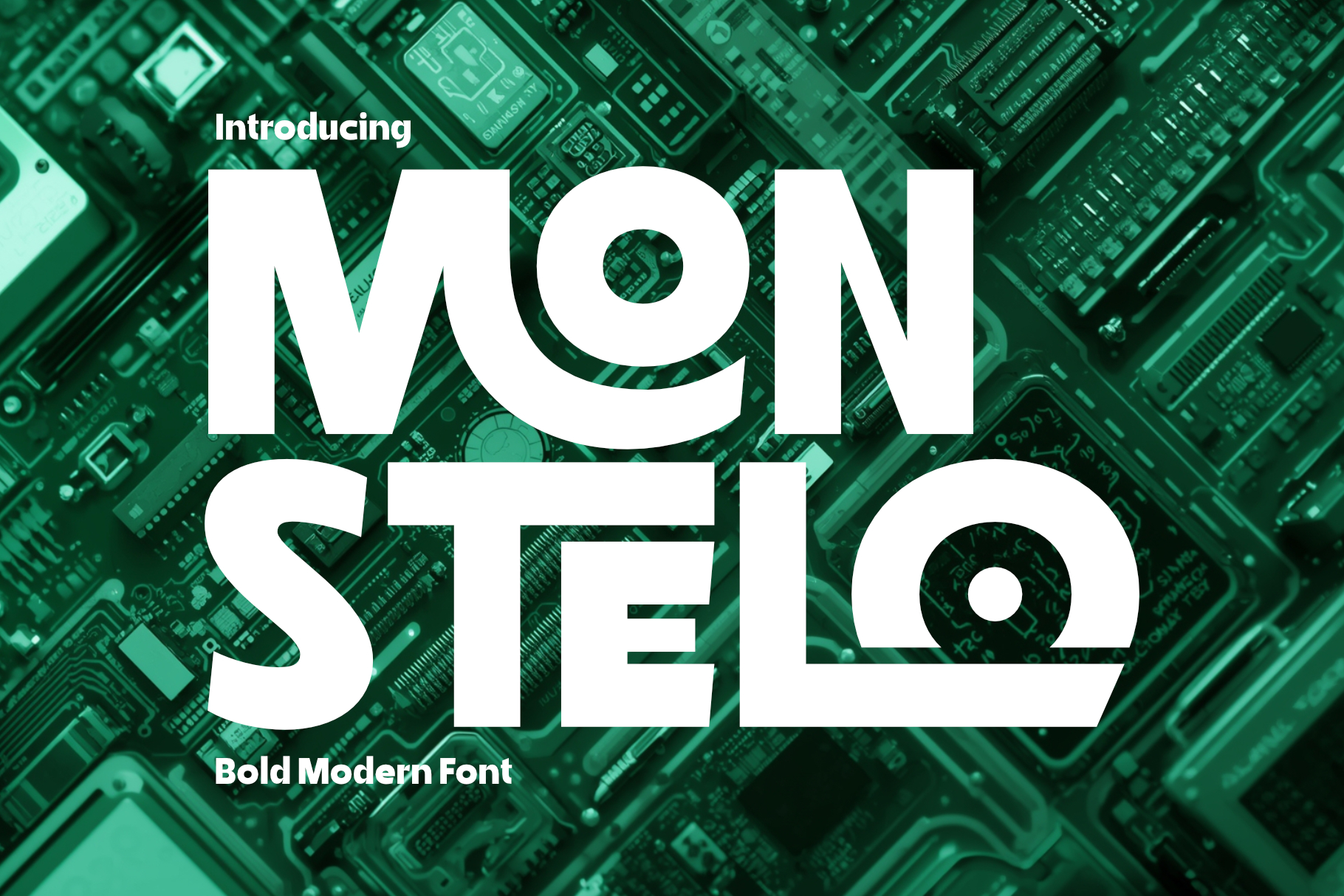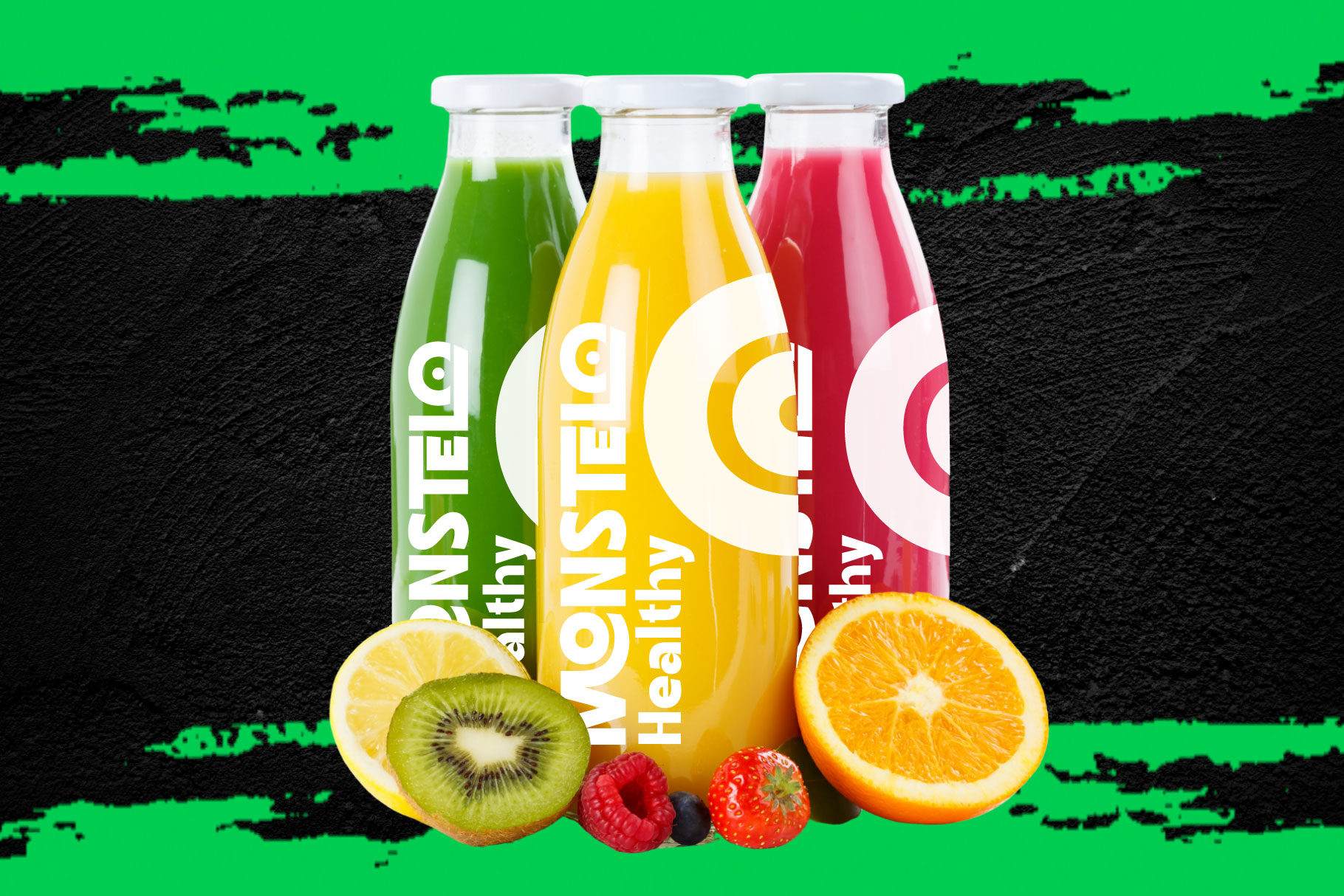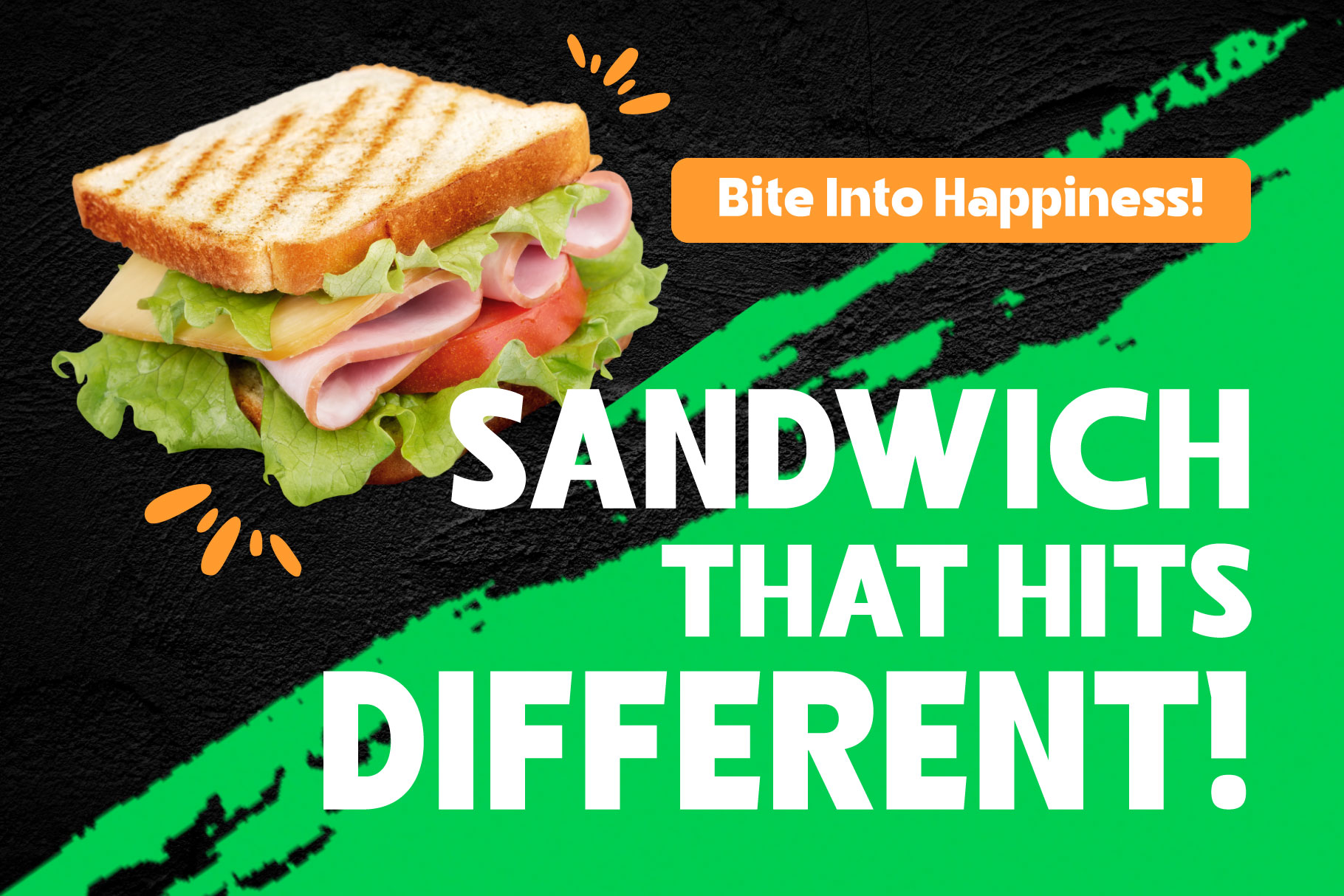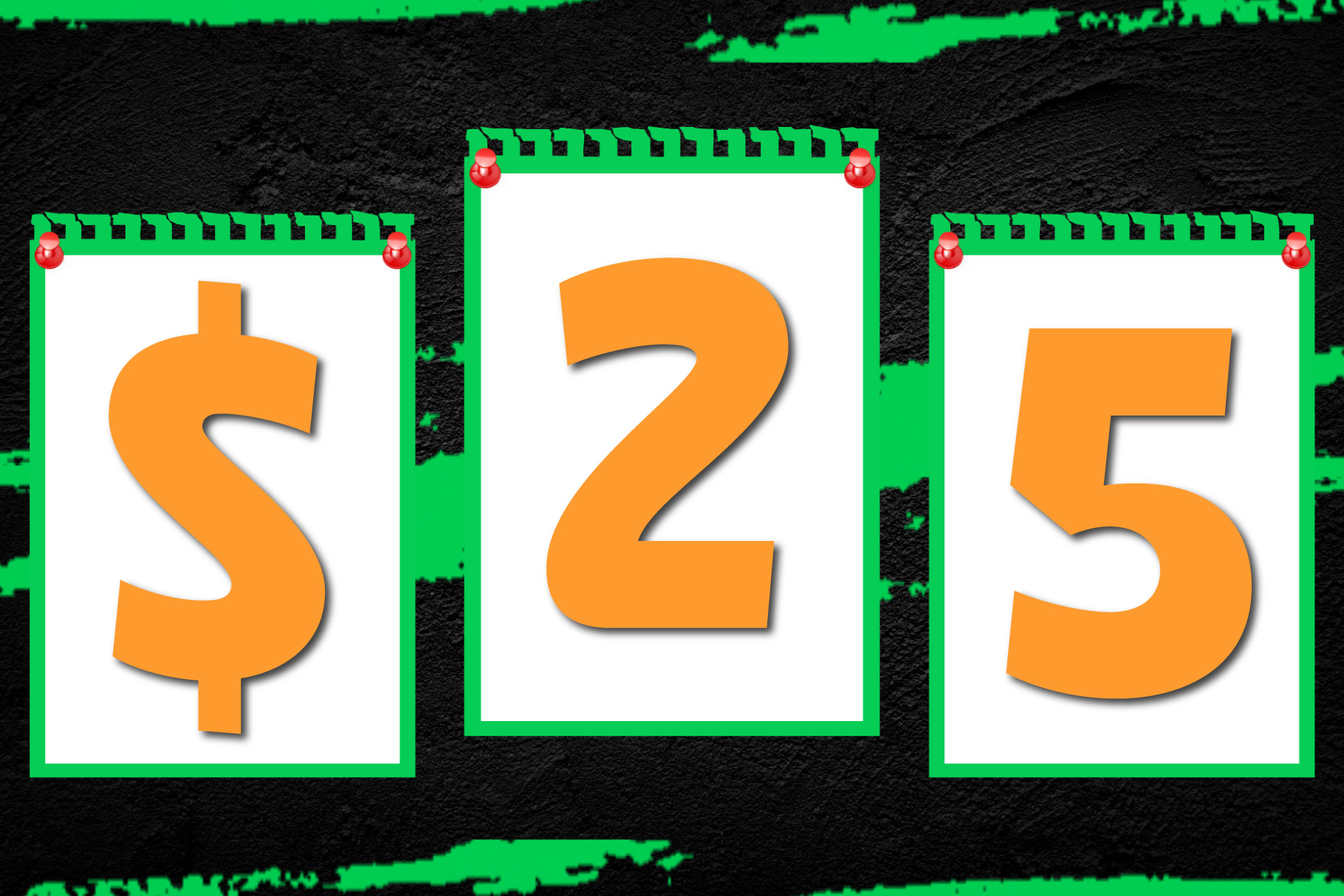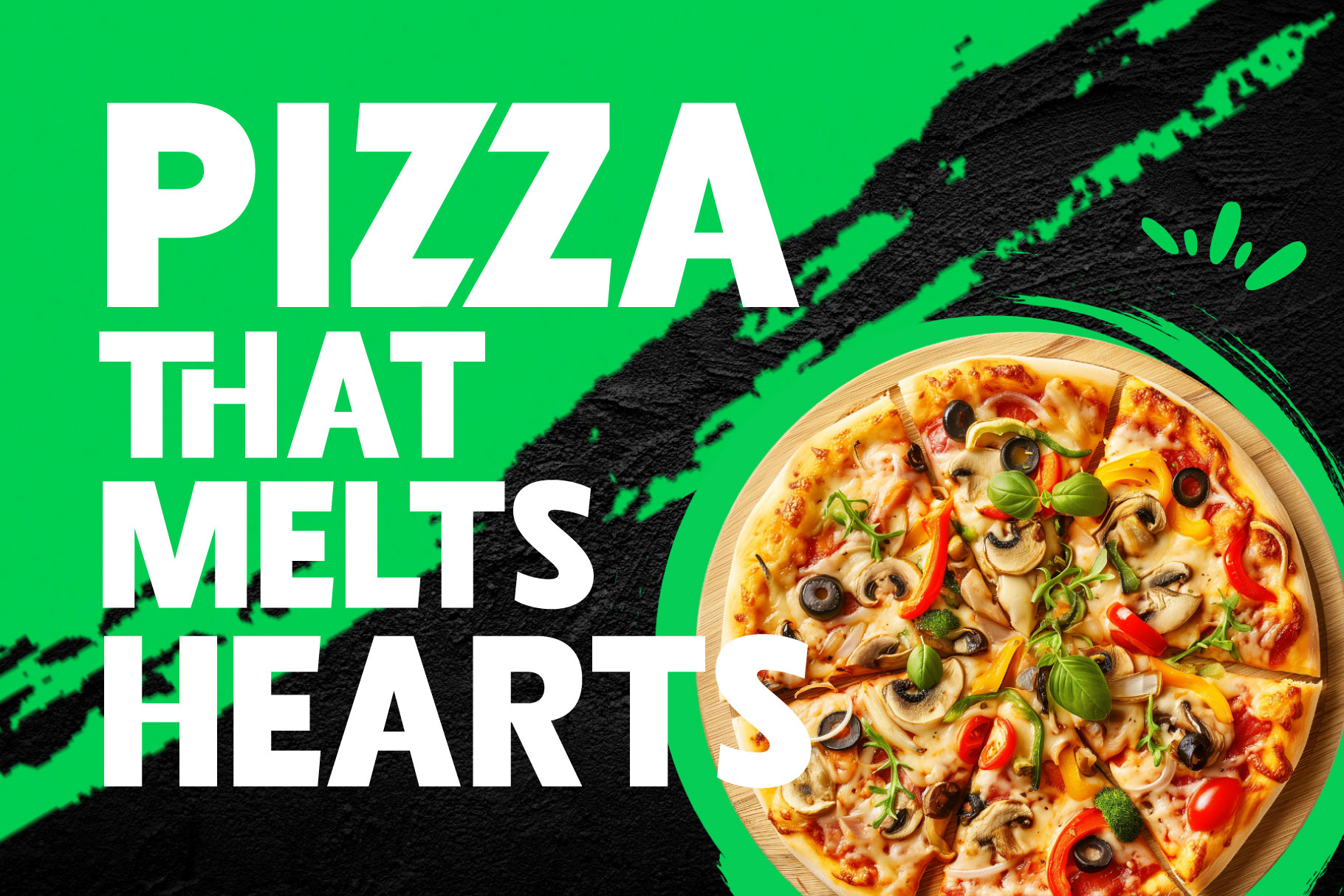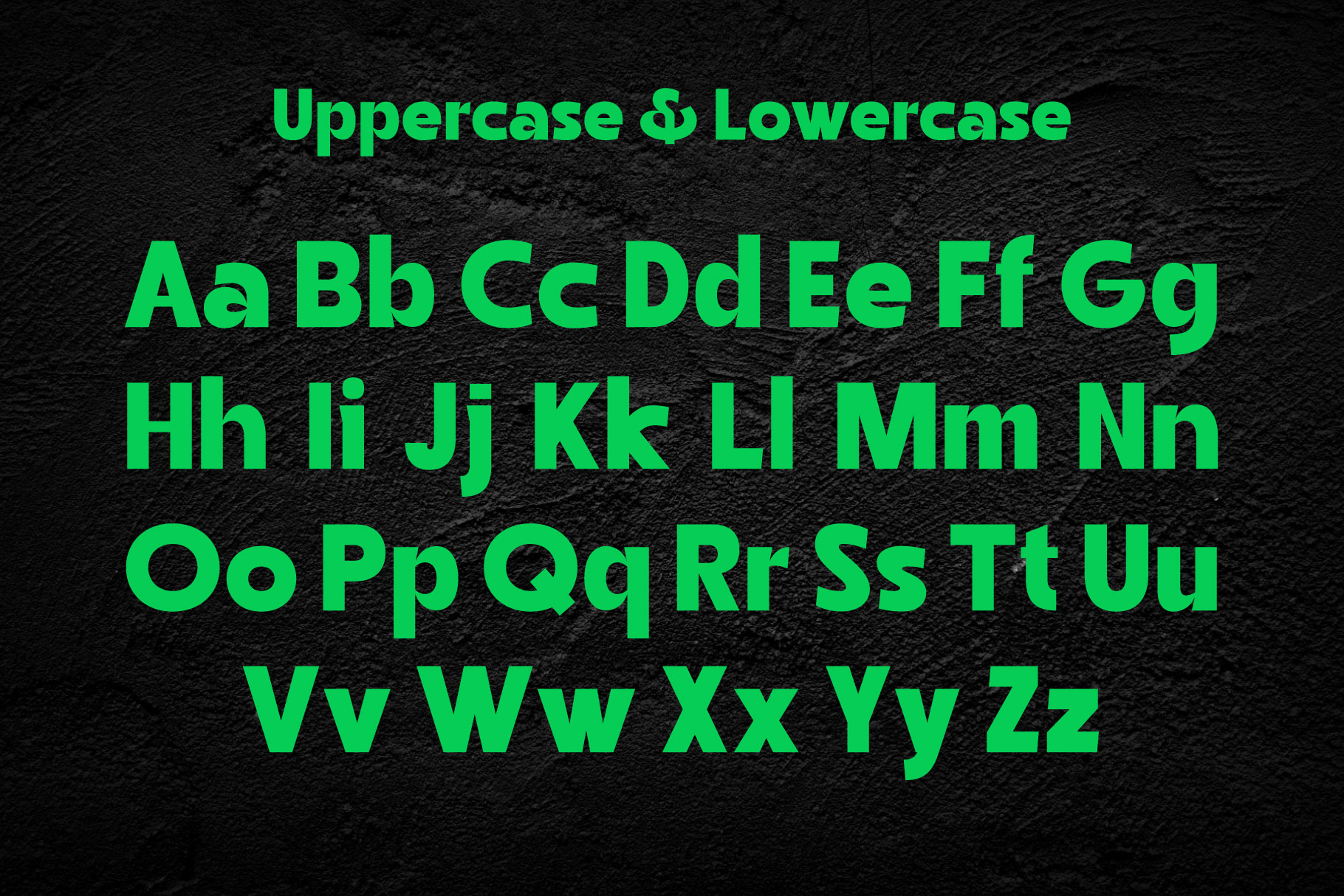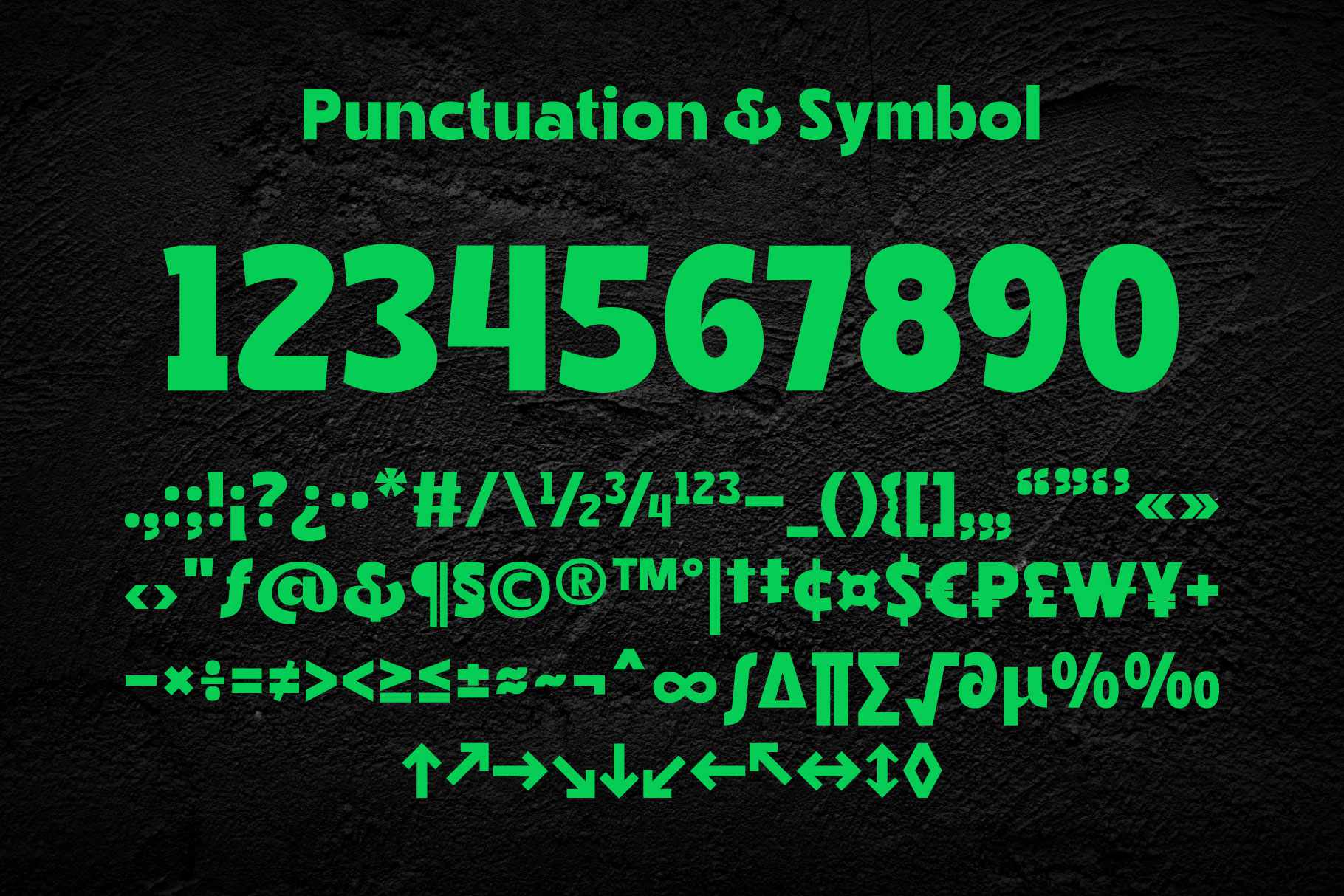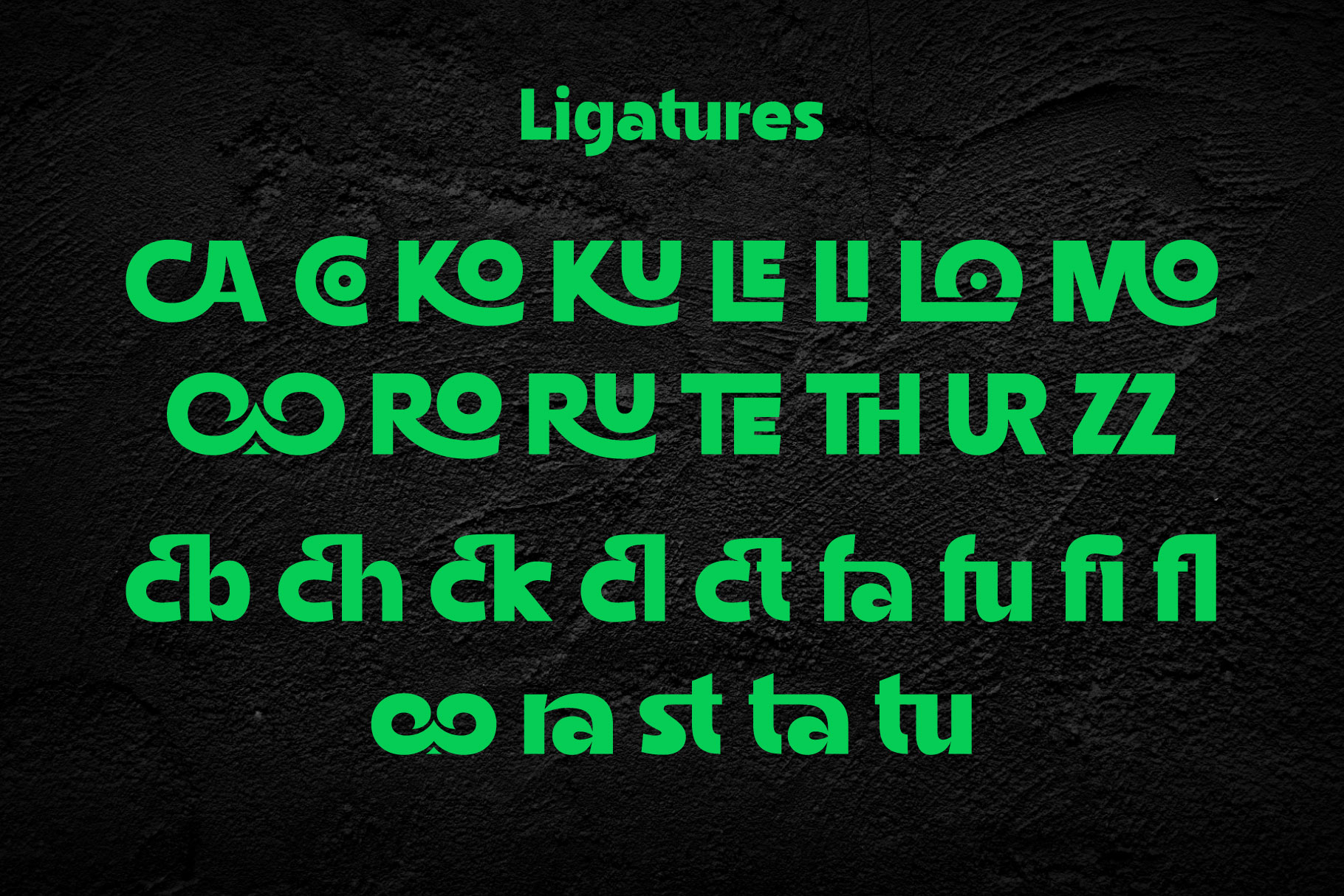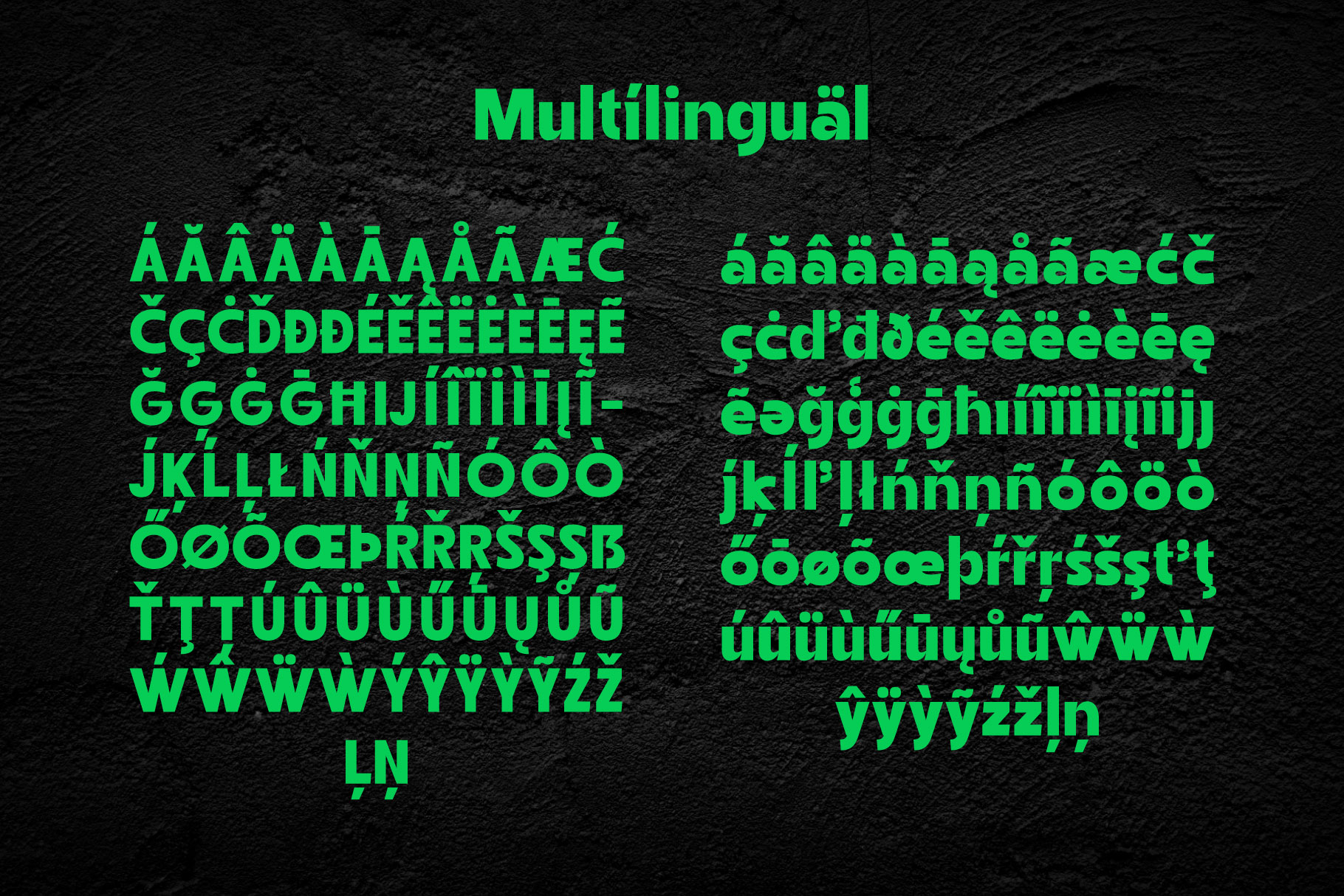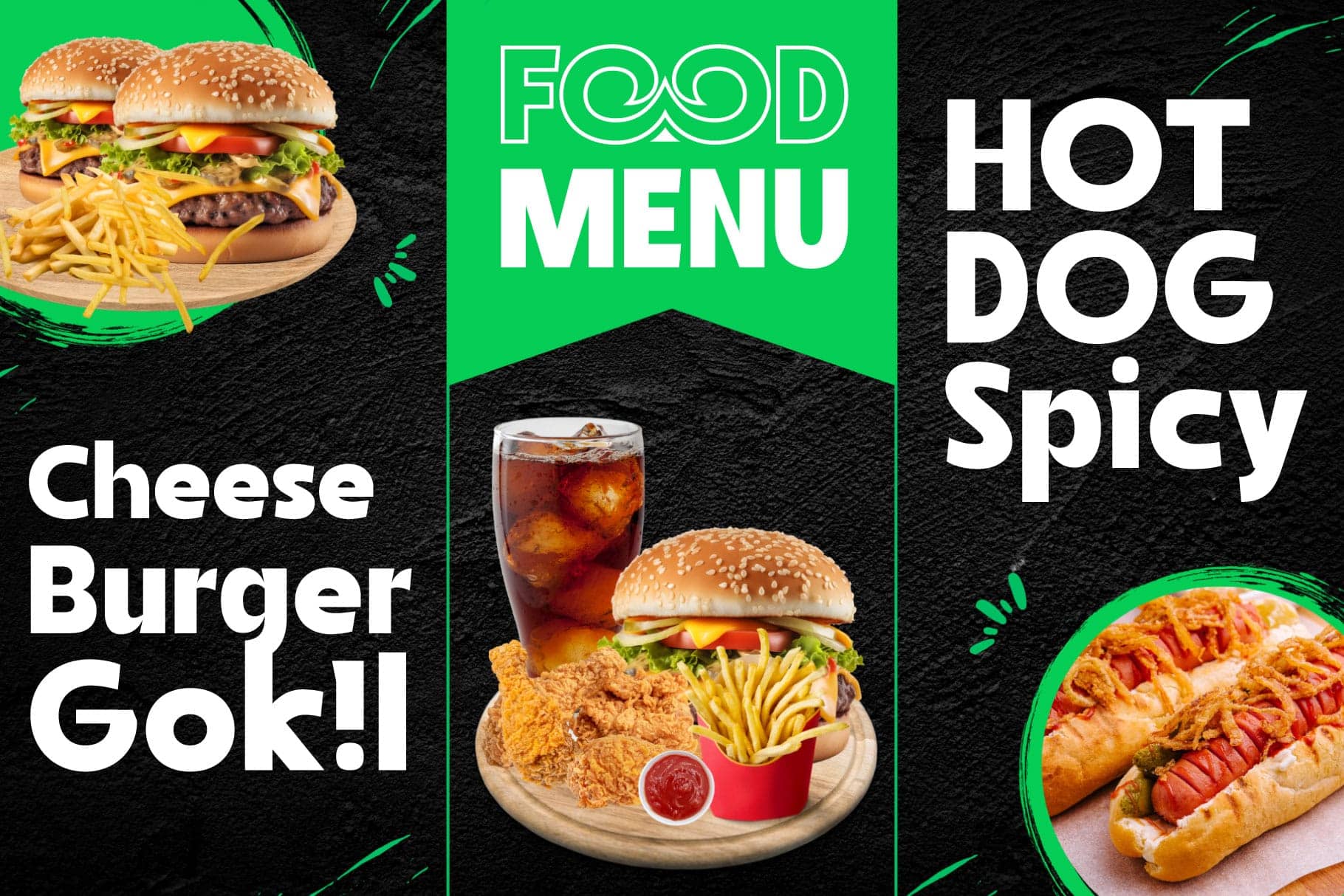
Monstelo – Bold Modern Font
Monstelo is a bold modern font designed to make your text stand out with confidence and futuristic style. Its strong geometric shapes and smooth curves bring a contemporary edge perfect for branding, tech themes, headlines, and creative projects that need a powerful visual impact.
With its clean lines and unique letterforms, Monstelo Bold Modern Font works beautifully for logos, posters, packaging, web design, and digital art. Whether you’re crafting a tech startup identity or an eye-catching social media post, this font will elevate your design with its bold presence.
– Uppercase & Lowercase letters
– Numbers & Punctuation
– Multilingual Support
– Smooth and clean design perfect for print and digital use